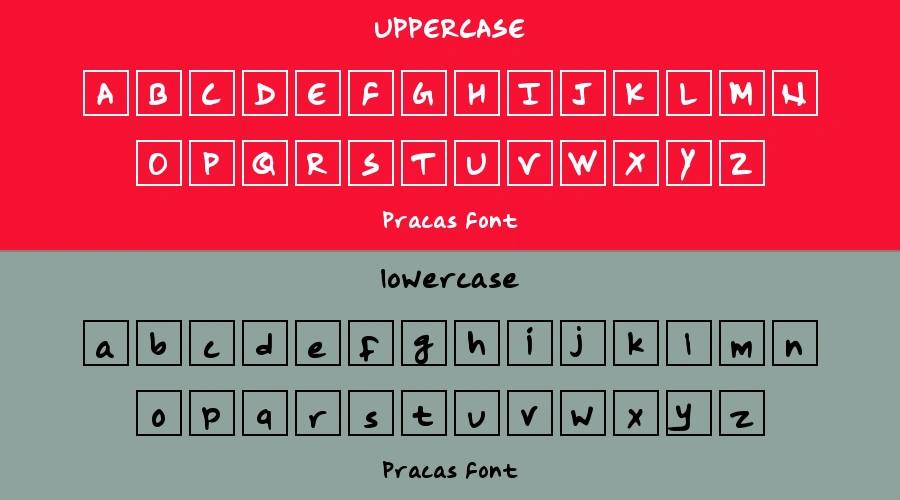
About Pracas Font
Designed with precision, Pracas Font merges unique personality with clarity in every character. This versatility makes it particularly effective for poster titles, where durability and cultural resonance directly impact communication quality. Each letterform demonstrates meticulous craftsmanship.
Technical excellence shines through elements like harmonious shapes and logotype support, enhancing typographic versatility. In regulatory documents settings, Pracas Font proves its worth through superior kerning accuracy. The thoughtful execution of bowl shape and scientific authority ensures professional results.